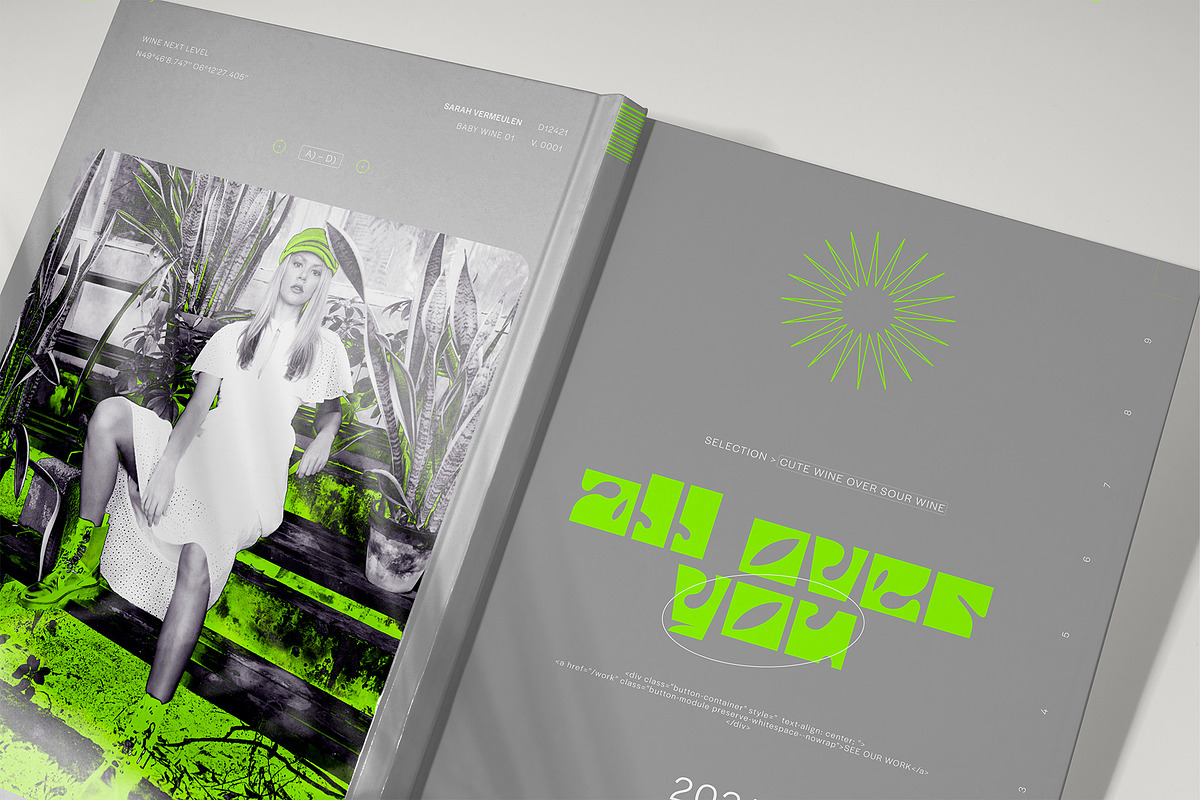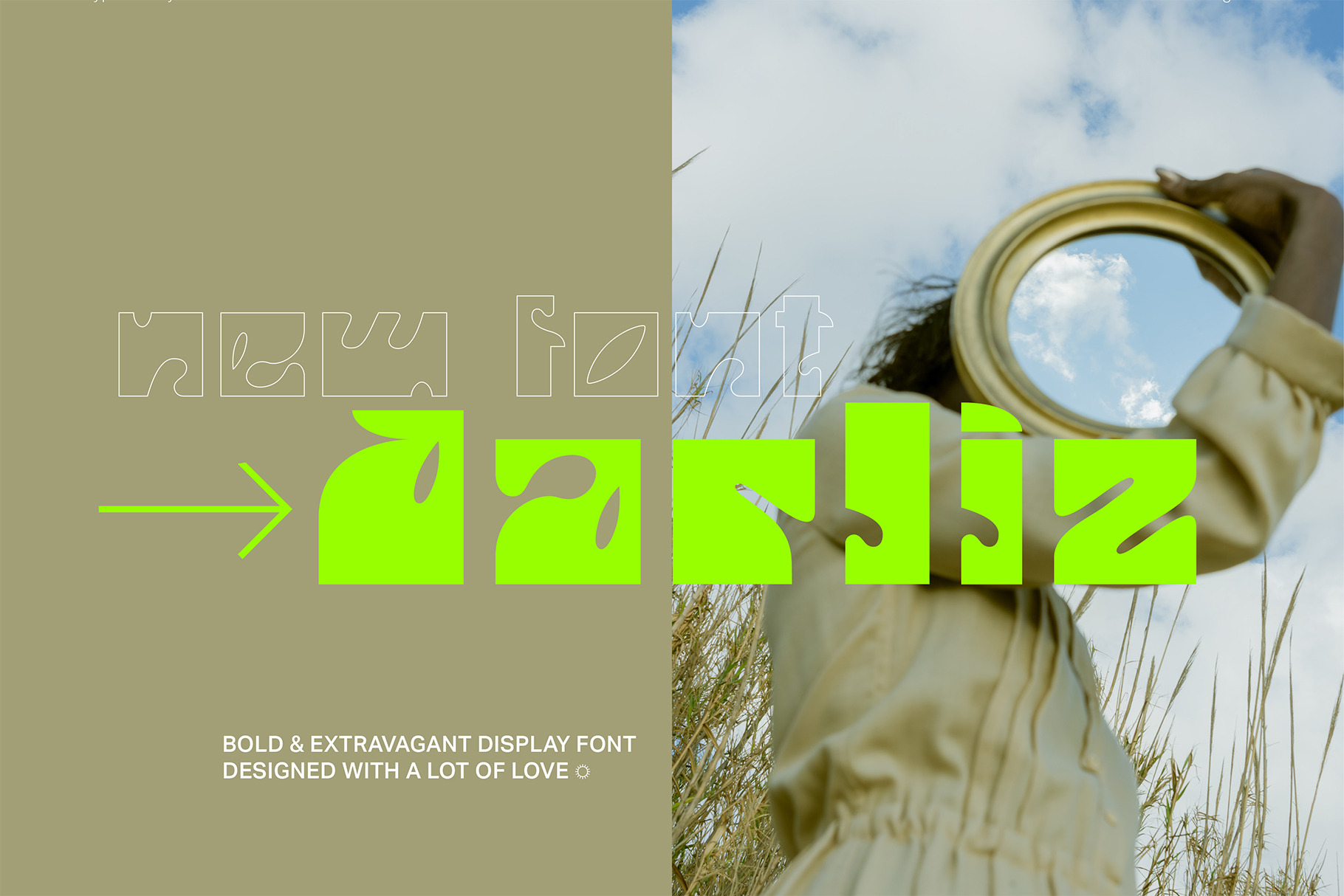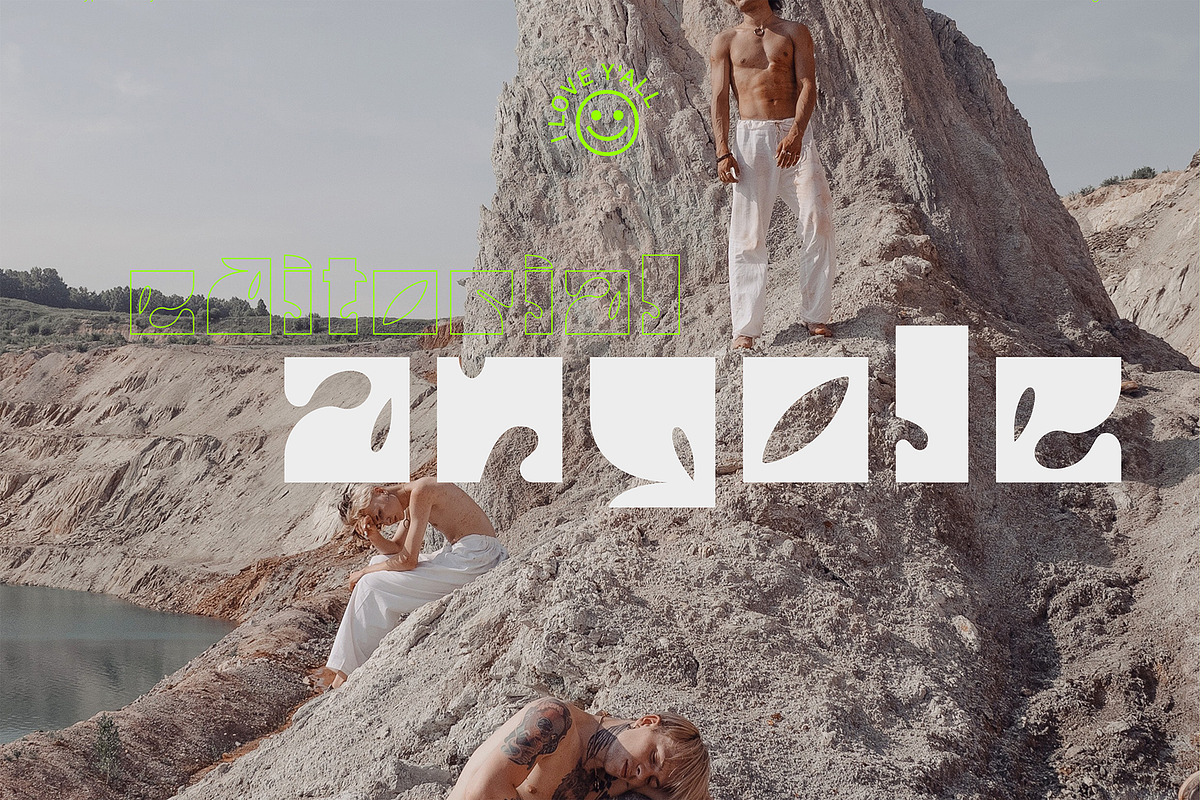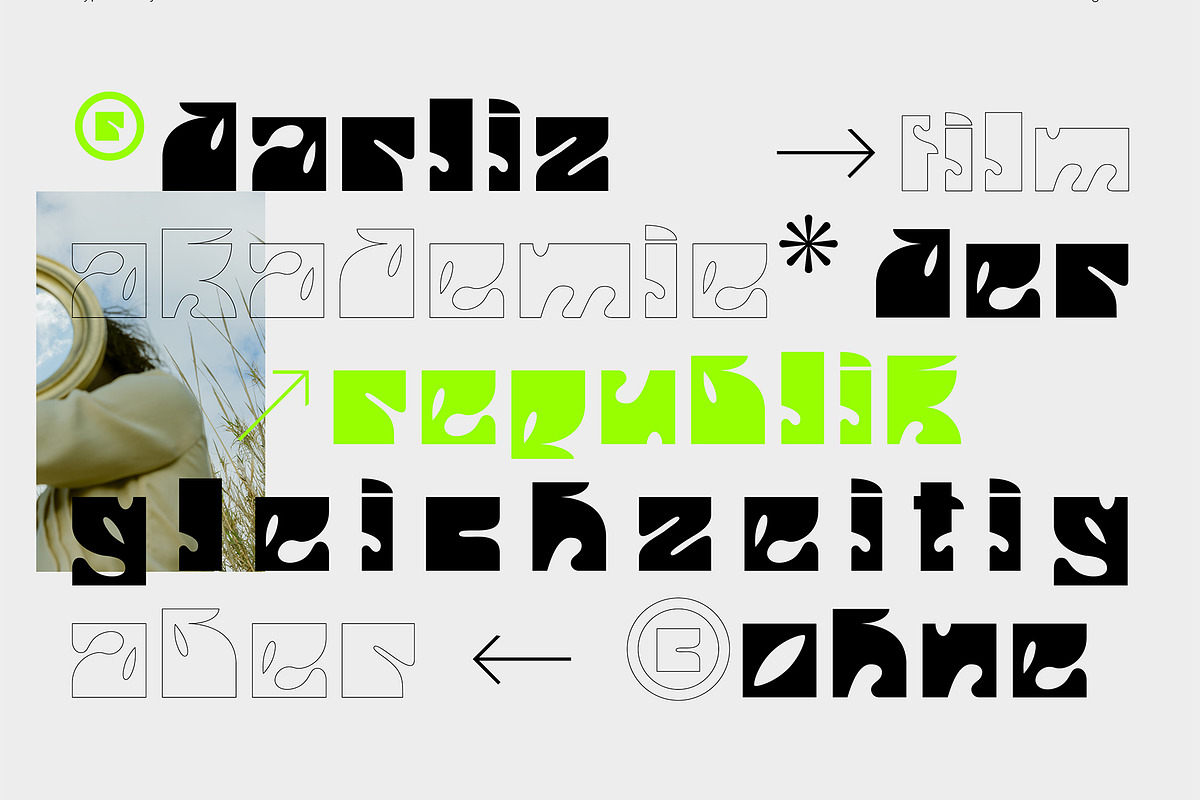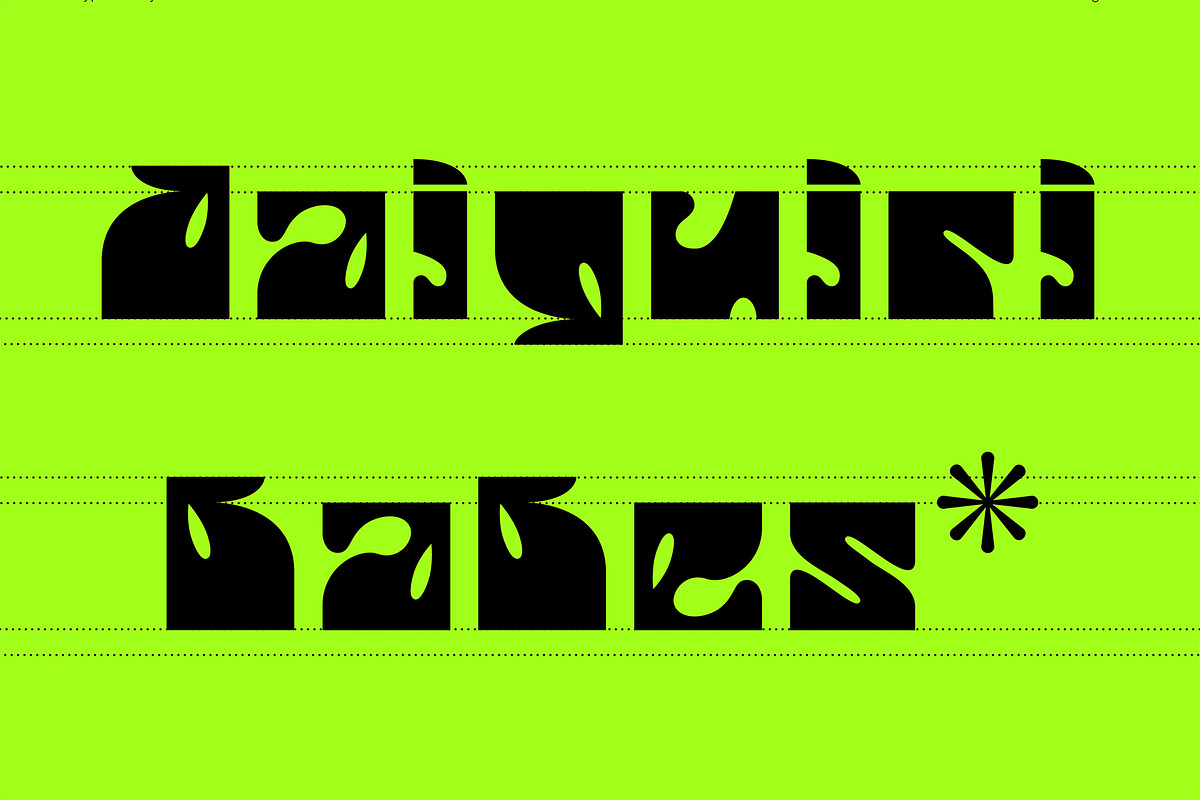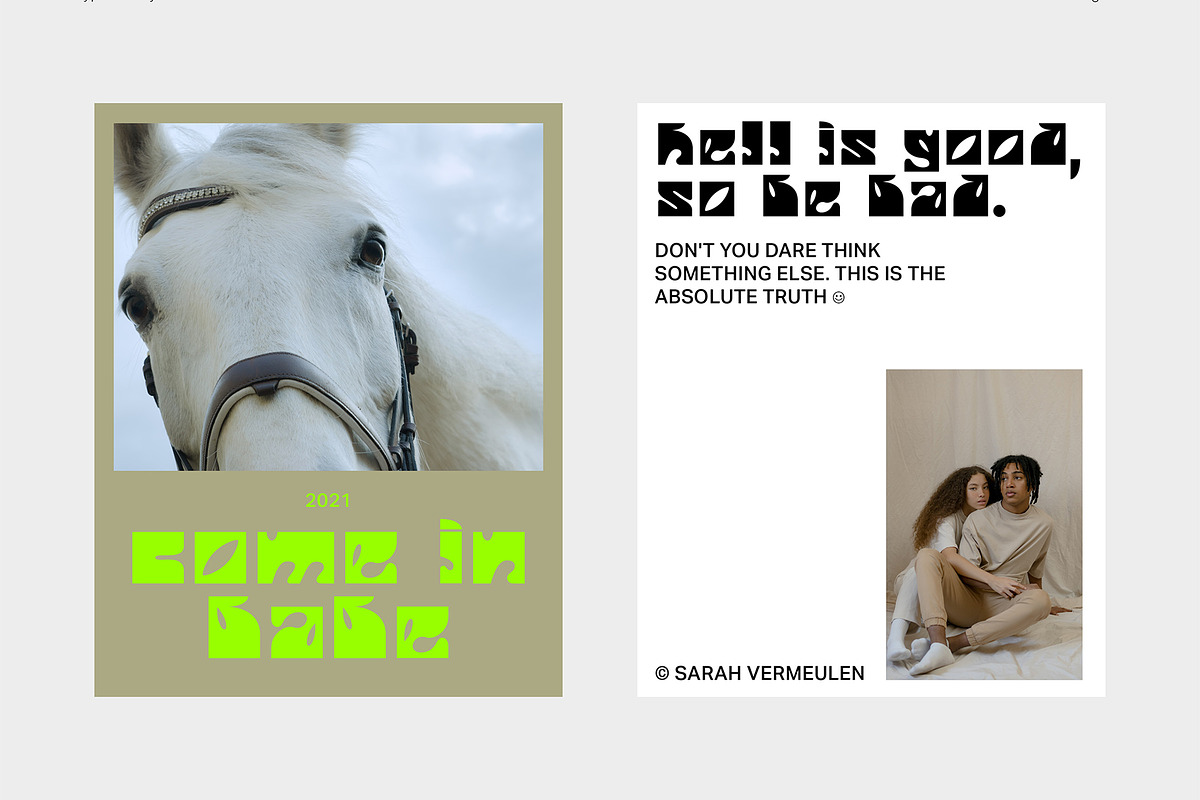
DARLIZ | Display Font
Get the modern and stylish DARLIZ typeface. DARLIZis a fresh and well-designed display font. It's modern, bold and extravagant!
❋ DARLIZ FEATURES ❋
- Minuscules ONLY
- 20 special characters